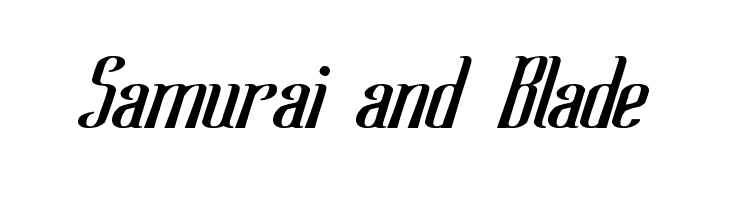
A dynamic, angular font with a modern, energetic style.
A modern, angular font with a futuristic and dynamic style.
A bold, angular font inspired by Japanese calligraphy with a modern edge.
A bold, angular font with a dynamic and edgy style.
A bold, Western-inspired font with thick strokes and decorative cut-out shapes.
A bold, shadowed sans-serif font with a modern, geometric style.
An artistic and decorative font with intricate swirls and curves.
A bold, decorative font with a vintage Western style.
An elegant script font with flowing, cursive strokes and dramatic flourishes.
A lively, cursive font with bold, expressive strokes and playful movement.